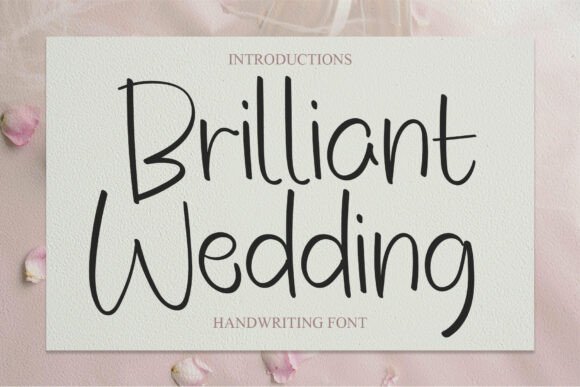
Introduction to Brilliant Wedding Font
Introducing Brilliant Wedding – a vibrant, high-energy font that commands attention with its quirky curves and dynamic personality.
This Modern Display Font is perfect for headlines, logos, posters, and any design that dares to stand out With its playful yet contemporary vibe, Over Point adds immediate impact to branding, social media, and editorial projects.
Key Features of Brilliant Wedding Font
Why Choose Brilliant Wedding Font?
Brilliant Wedding Font offers exceptional quality and versatility, making it a valuable addition to your design toolkit. Whether you’re creating for personal projects or commercial use, Brilliant Wedding Font delivers professional results.